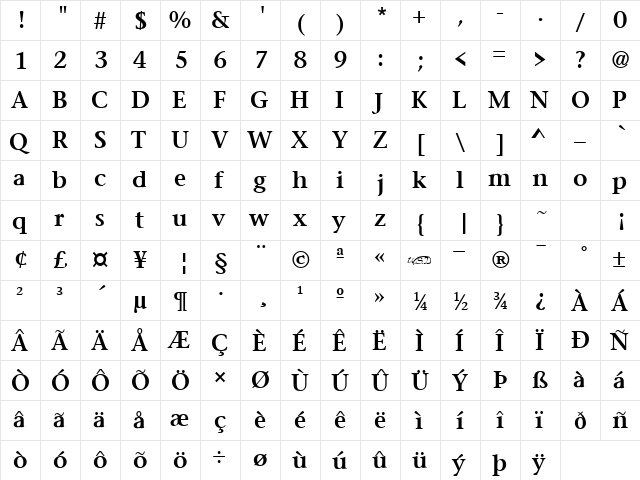
Prudential fed
Design Context for Prudential Typeface
Prudential takes a measured approach to typography — its balanced proportions and neutral character make it a reliable workhorse for both digital and print work.